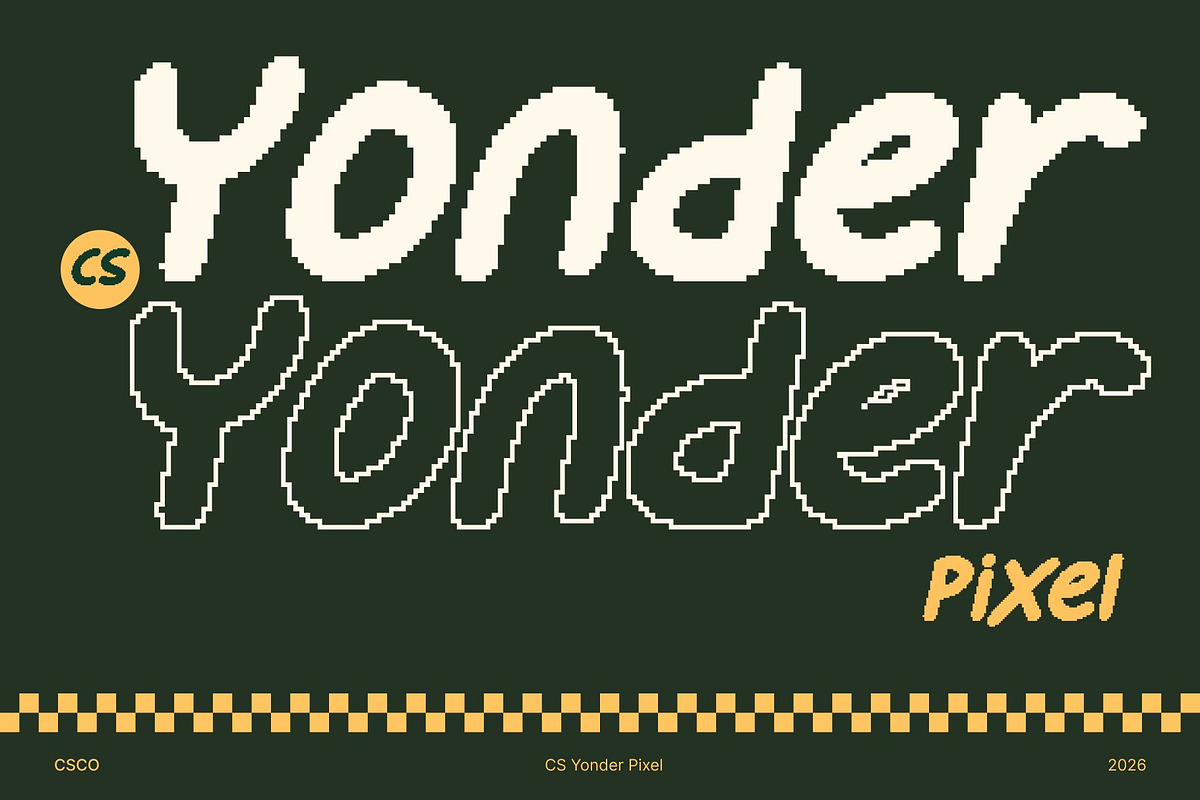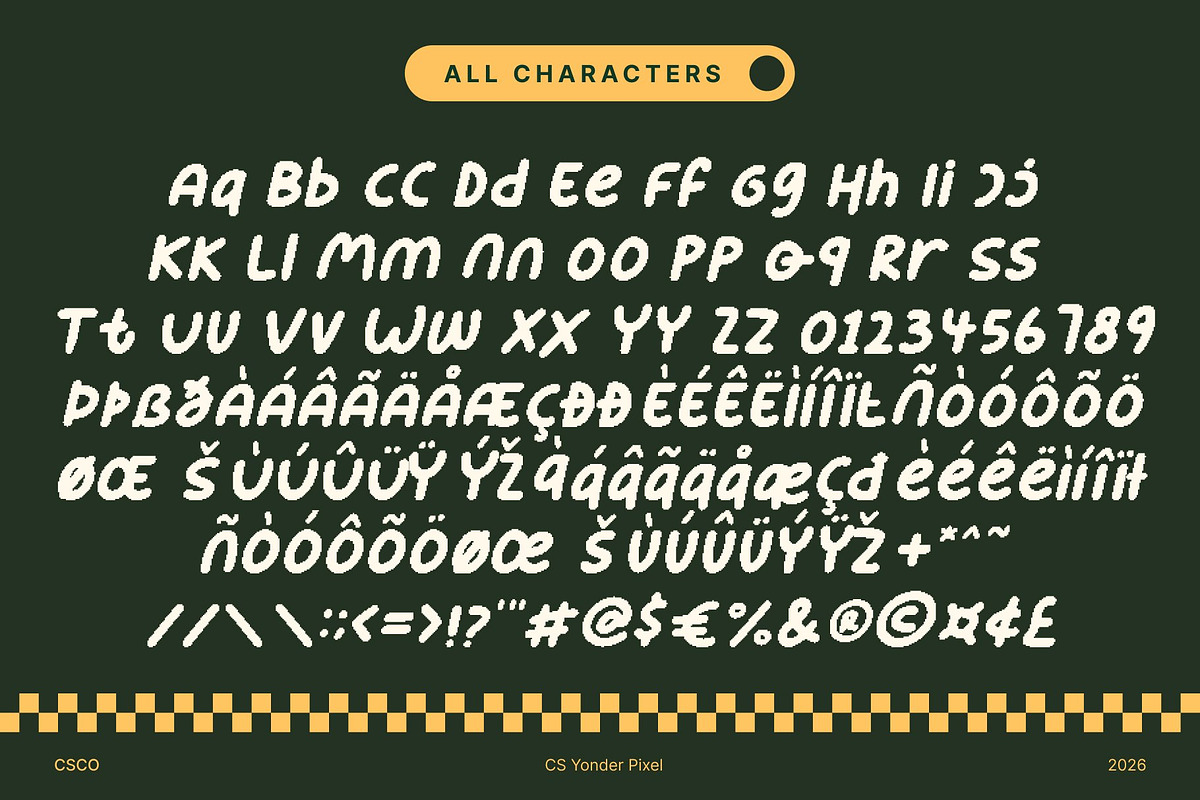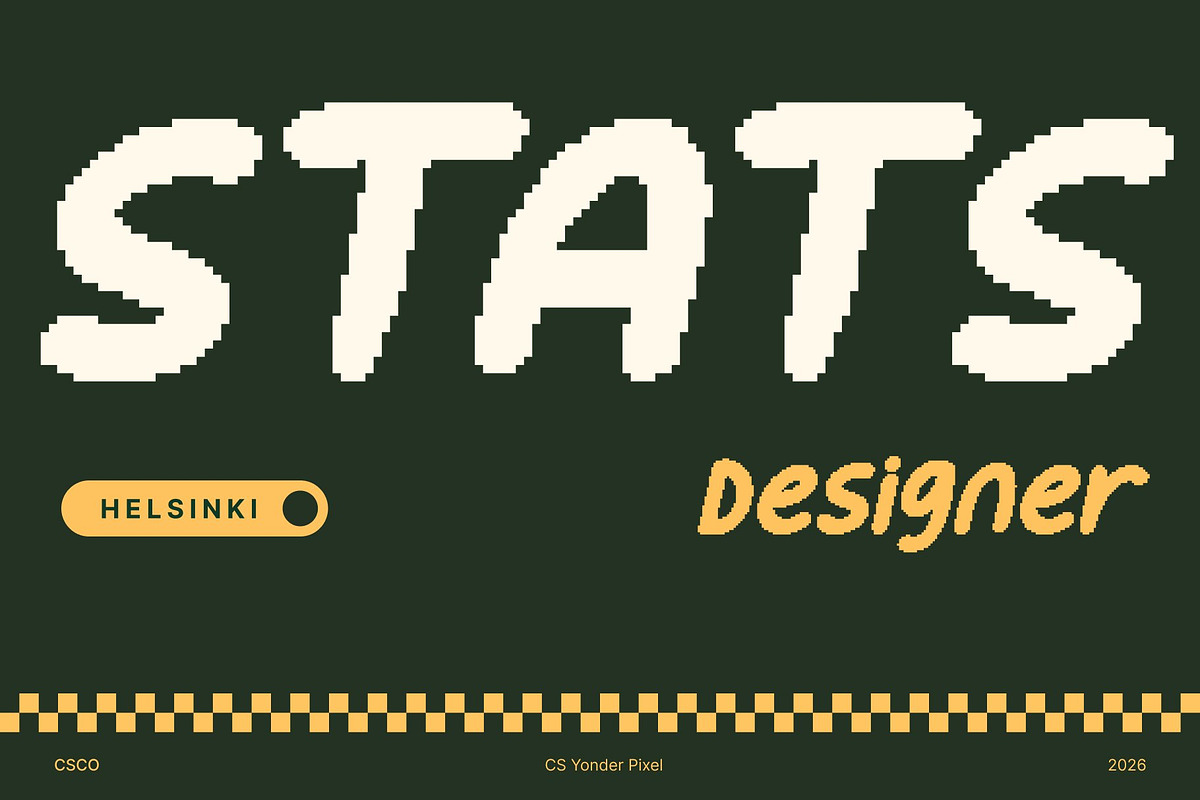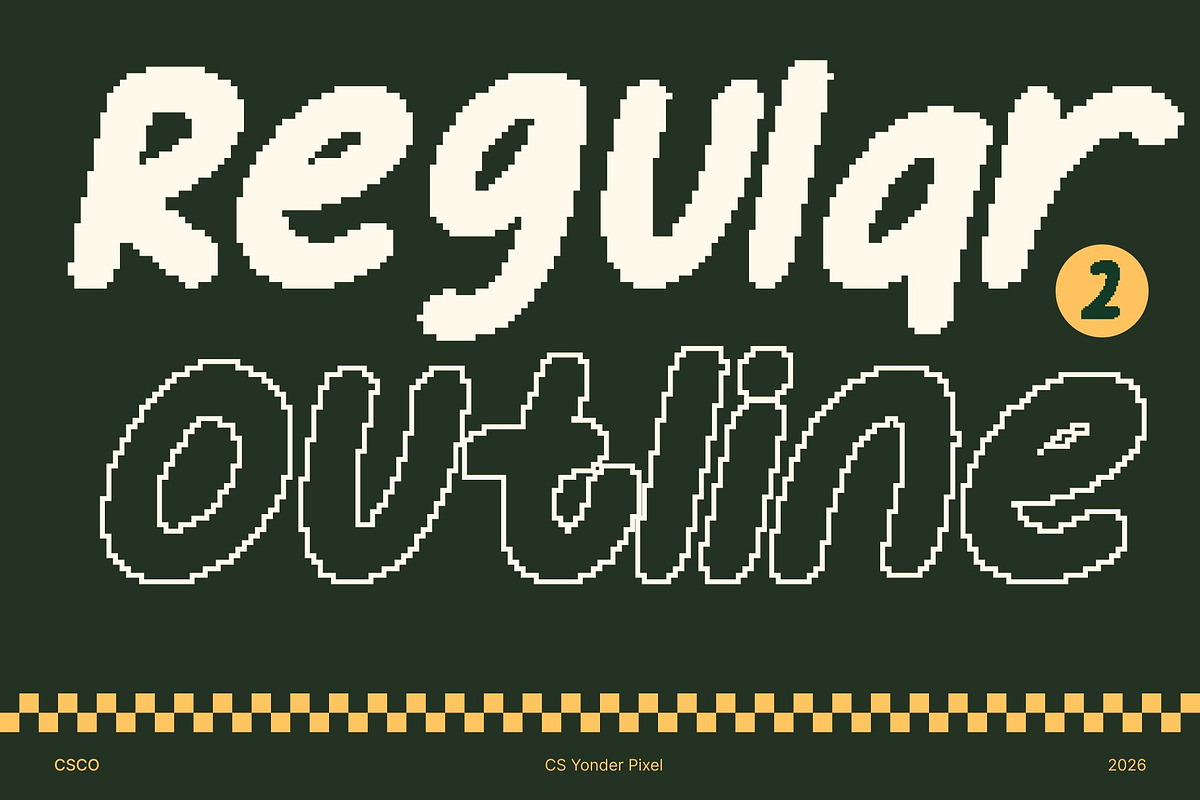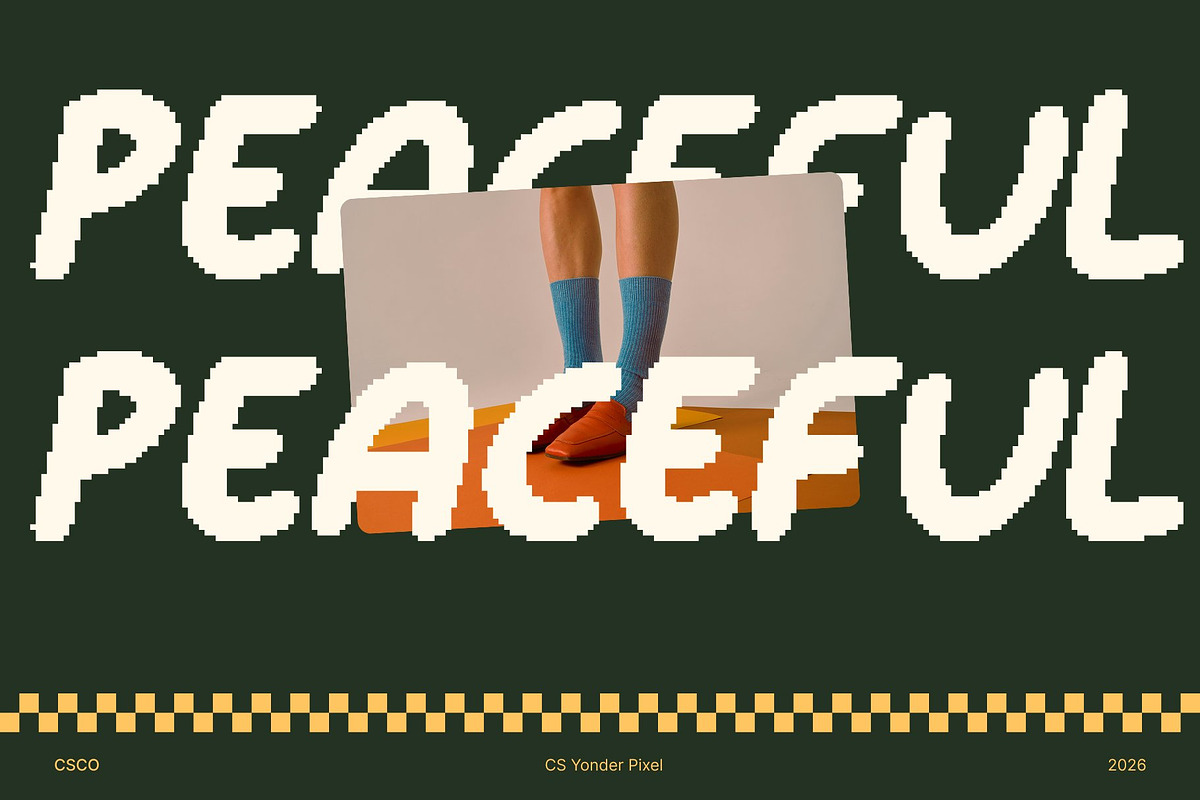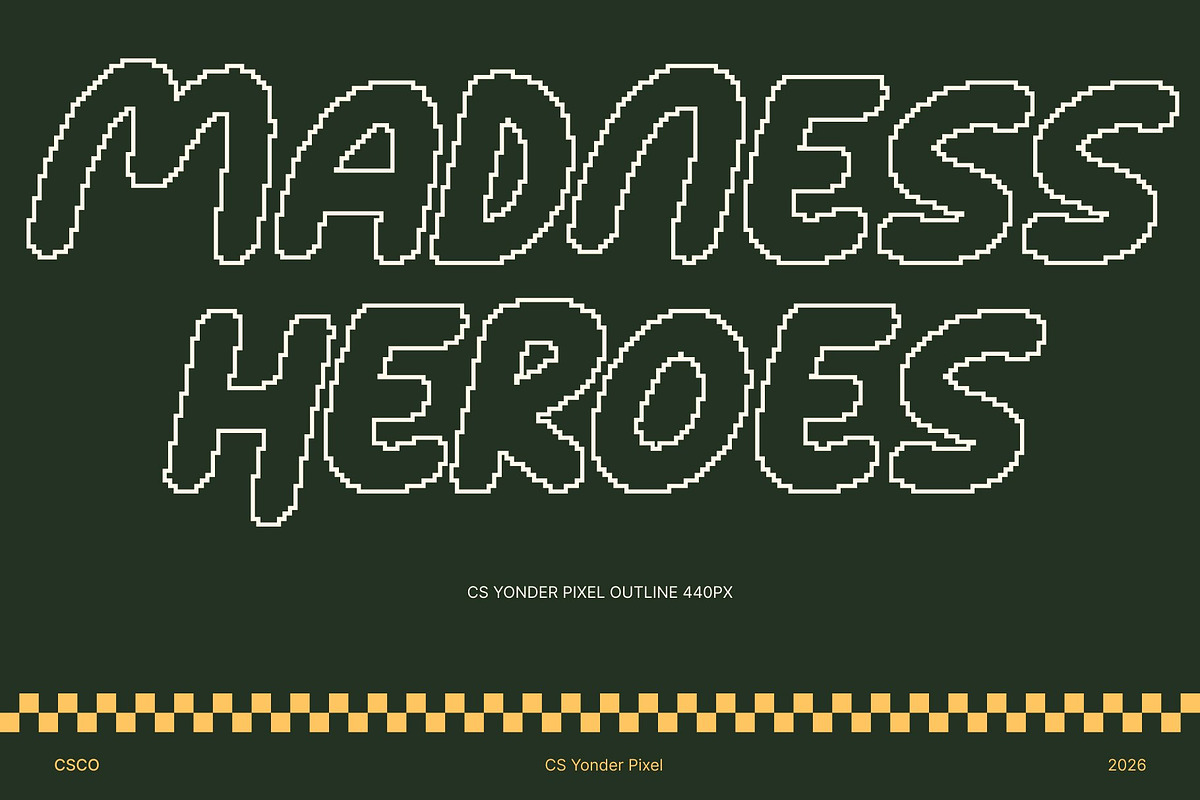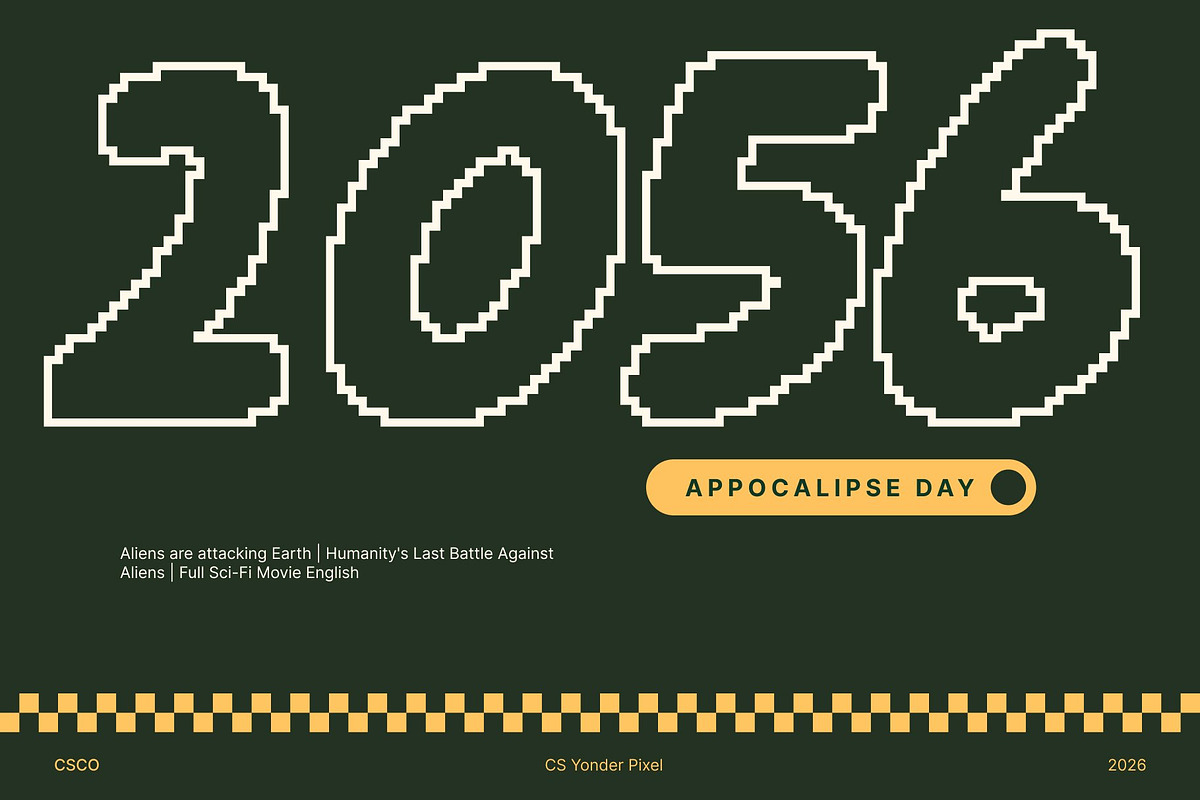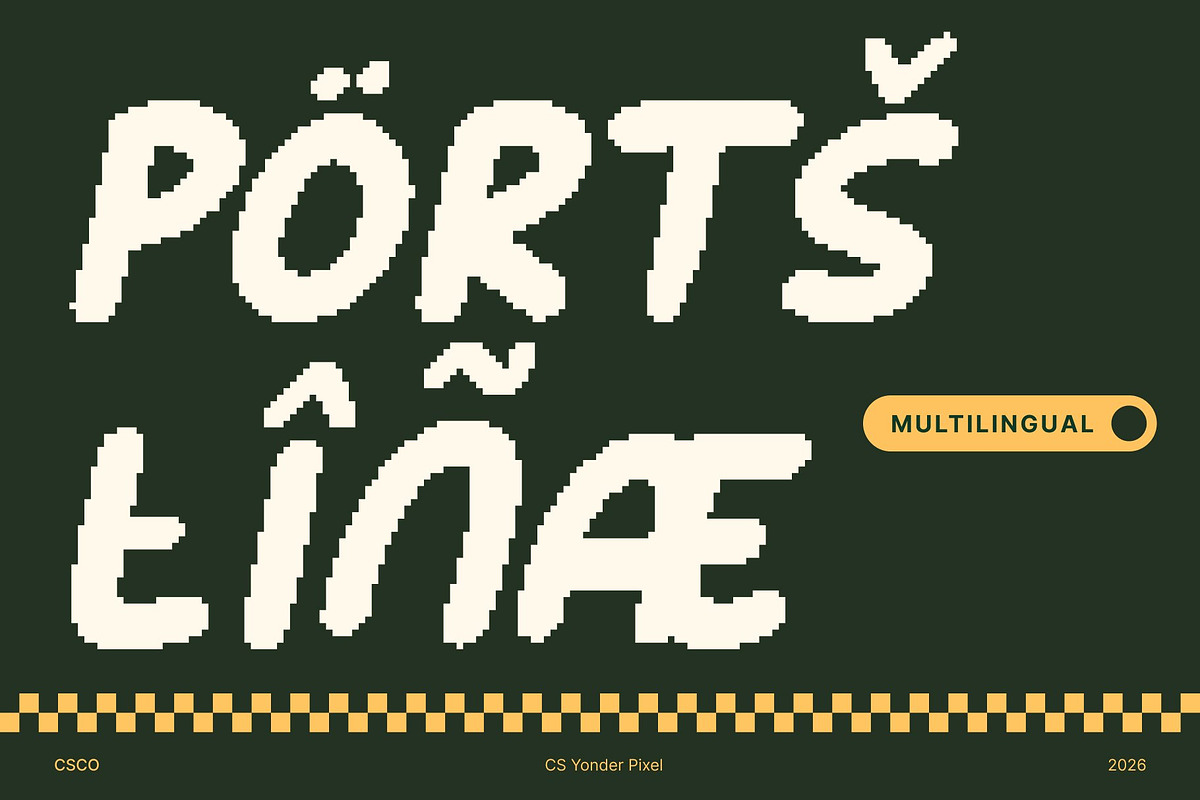
CS Yonder Pixel
CS Yonder Pixel – Playful Charm for Bright Imagination
Friendly Handwritten Pixel Style for Kids This is a cute kids display font that combines a cheerful handwritten feel with a playful pixel-based construction. Designed to capture the joy, spontaneity, and imagination of childhood, each letter blends clean structure with organic movement in a bitmap style.
Cheerful Pixel Shapes with Expressive Energy The rounded, neatly crafted letterforms are built on a pixel grid, creating a crisp yet soft appearance that radiates warmth and positivity. The handwritten influence adds natural rhythm and motion, giving the text a lively and engaging flow. This balance between playful pixels and hand-drawn charm makes the font feel energetic, happy, and easy to read.
Perfect for Creative and Colorful Designs Ideal for children’s books, educational materials, posters, games, logos, stickers, and playful packaging, shines in colorful and imaginative projects. Its bitmap style performs beautifully in digital and screen-based designs while remaining charming and legible in print, making it a versatile choice for kid-friendly visuals.
A Fun Typeface with Heart and Character This is more than just a cute display font it’s a celebration of creativity, curiosity, and joy. Blending clarity, pixel precision, and expressive handwritten charm, it invites designers to create work that feels friendly, inspiring, and full of smiles. Perfect for bringing positivity and playful energy to every creative project.
CS Yonder Pixel Regular
CS Yonder Pixel Outline